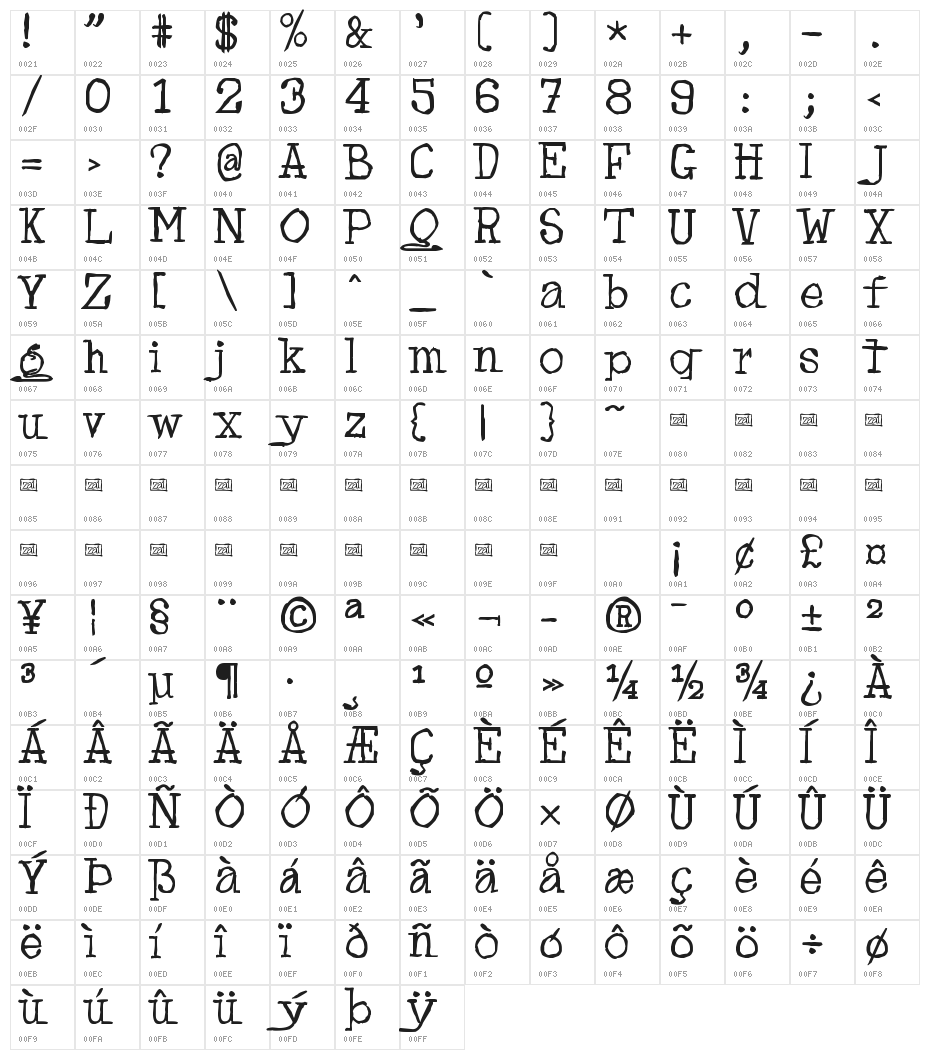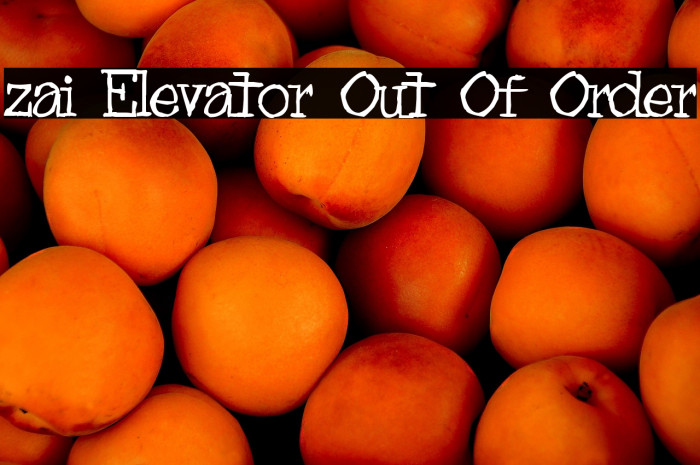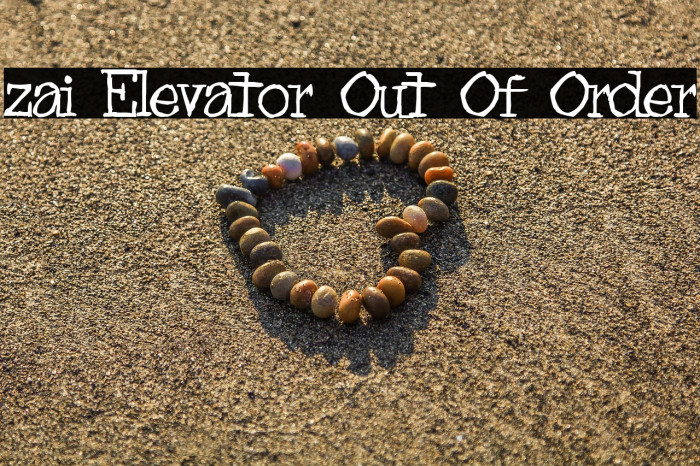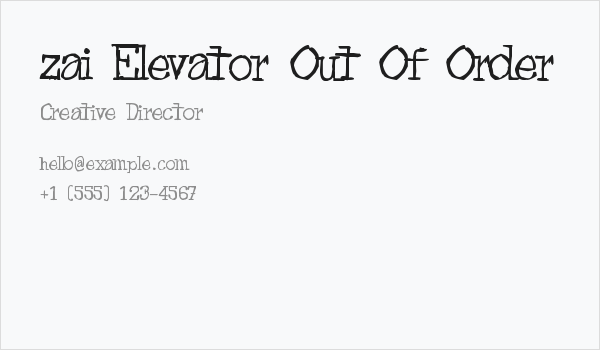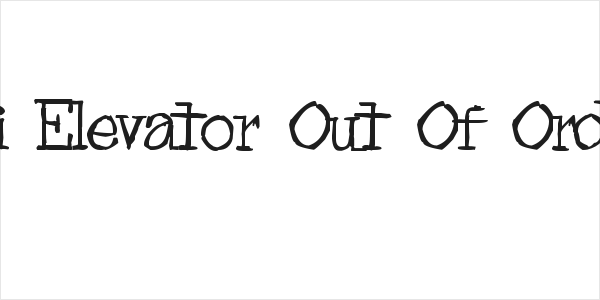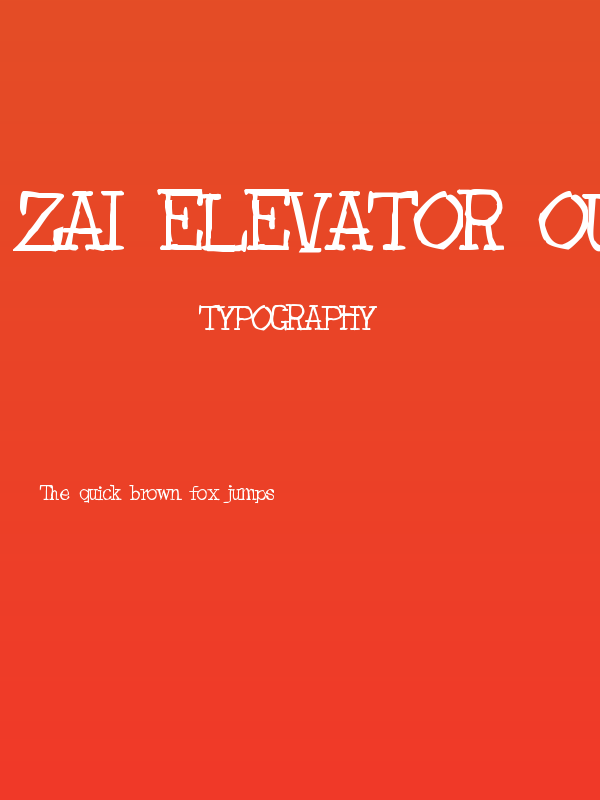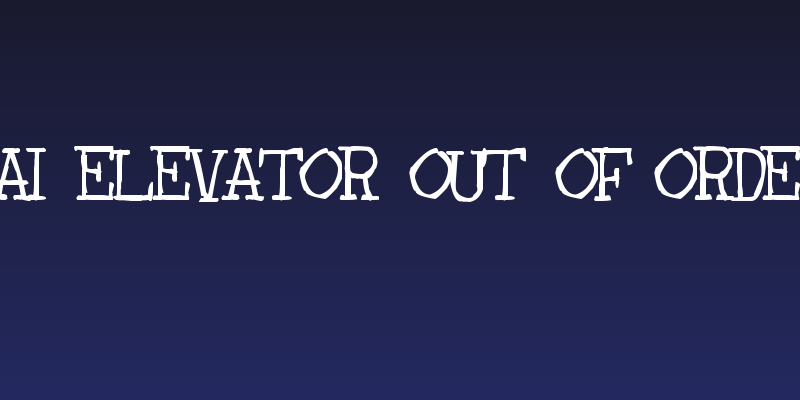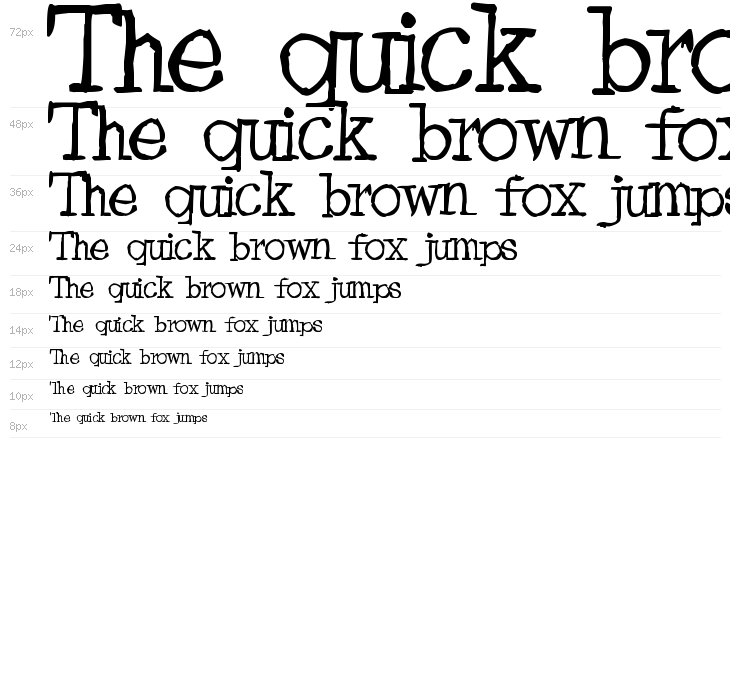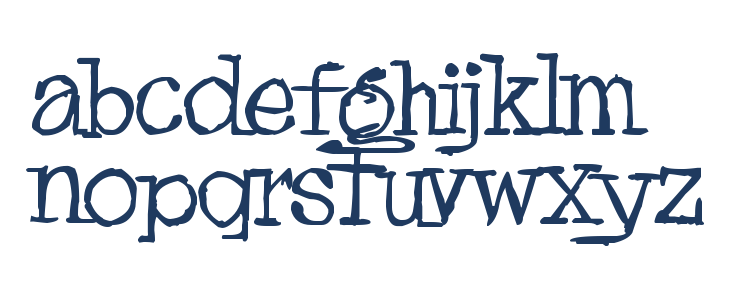
zai Elevator Out Of Order Font
zai Elevator Out Of Order Description
This font features a unique, hand-drawn style with a playful and slightly chaotic appearance. The characters are irregular and have a whimsical quality, with varying stroke thicknesses that add to its quirky charm. The uppercase letters are bold and prominent, while the lowercase letters maintain a consistent style with a slightly smaller size. Numbers and special characters follow the same playful design, making the font suitable for creative and informal projects. The overall look is reminiscent of a casual, artistic handwriting, perfect for adding a personal touch to any design.
| Proposed Projects | Ideal for children's books, creative posters, artistic branding, and informal invitations. |